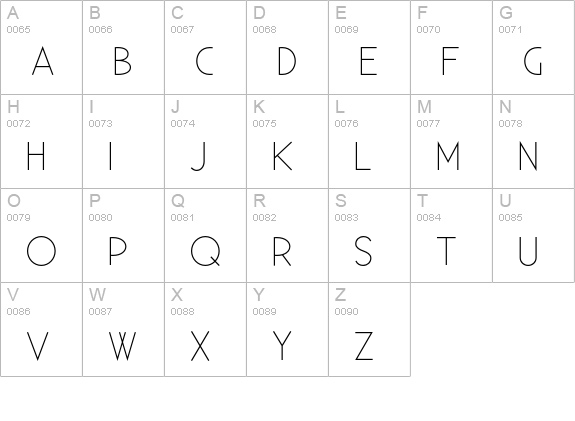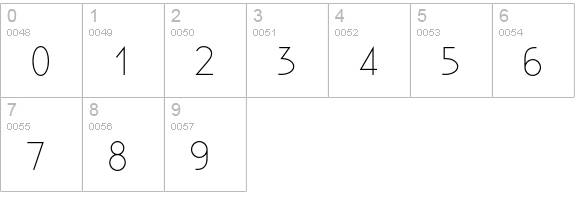
Existence Light Font Details
Existence Light is a refined, elegant variant in the Existence typeface family \xE2\x80\x94 well suited to elegant body text, refined sub-headings, and luxury branding.
Existence Light font is a beautifully crafted typeface that exudes elegance and sophistication. Its delicate strokes and graceful curves create a sense of lightness and fluidity that is perfect for conveying a sense of modernity and style. This font is ideal for a wide range of design projects, from branding to editorial design. What sets Existence Light font apart is its versatility and readability, making it a great choice for both headlines and body text. The clean and minimalist design of this font ensures that your message will be conveyed clearly and effectively. And the best part? Existence Light font is available for free download at FontsMarket.com, making it accessible to designers of all levels. Whether you're a seasoned professional or just starting out, this font is sure to elevate your designs and bring a touch of sophistication to your projects.